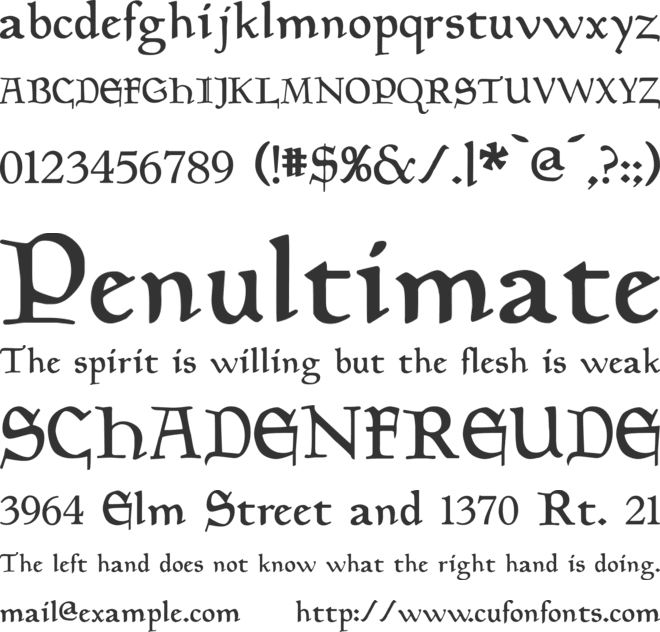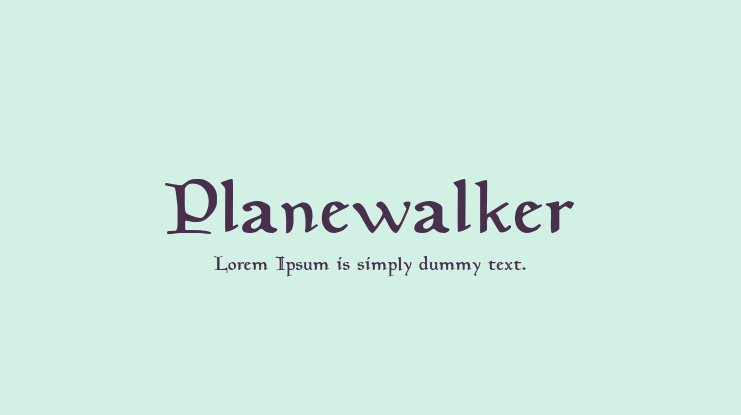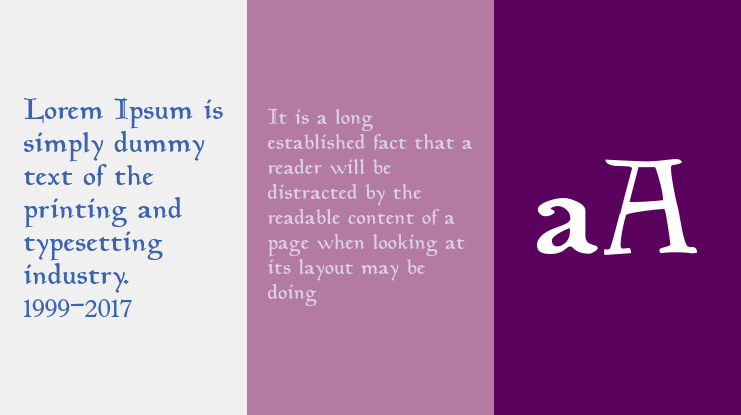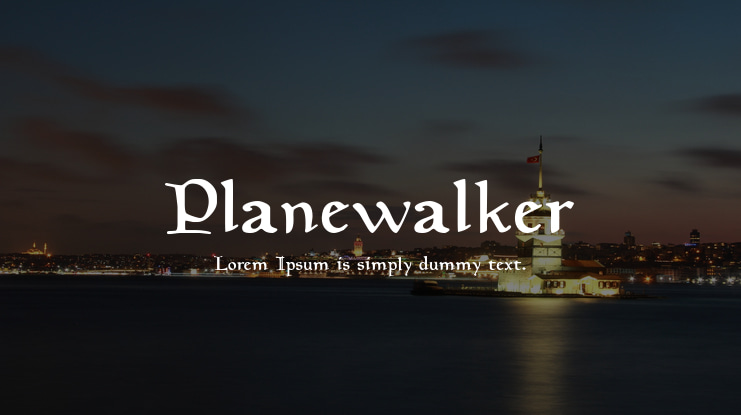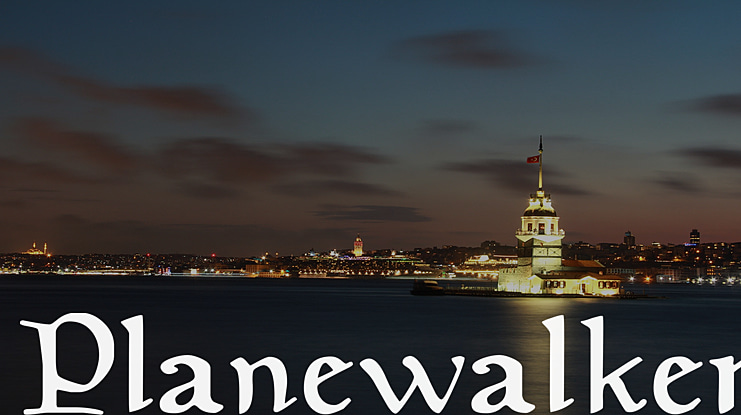
Planewalker Font Family
Neale Davidson
Planewalker is based on the card text from the first several editions of Wizards of the Coast’s Magic: The Gathering collectable card game. This calligraphic-style face includes the full alphabet, extended punctuation, Euro. Comes in regular, bold, italic, and bold-italic weights.